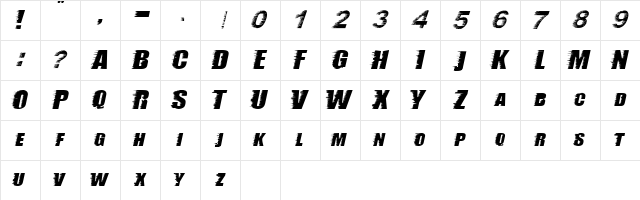
storm ExtraBold Free Font
storm ExtraBold
Design Context for storm
storm is a composed and adaptable typeface that performs quietly and consistently across a wide range of design contexts. Its bold stroke weight gives it real presence on the page.